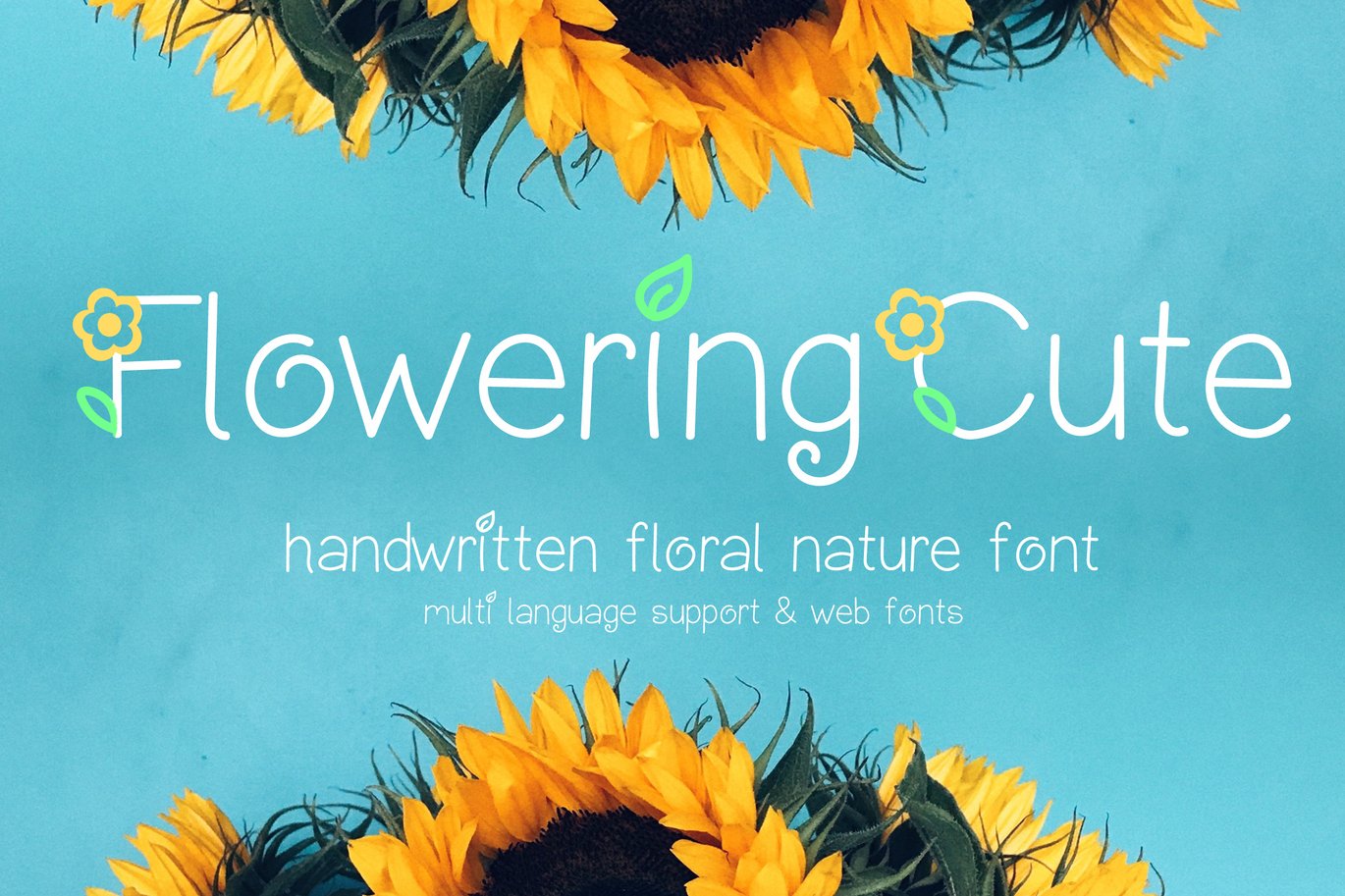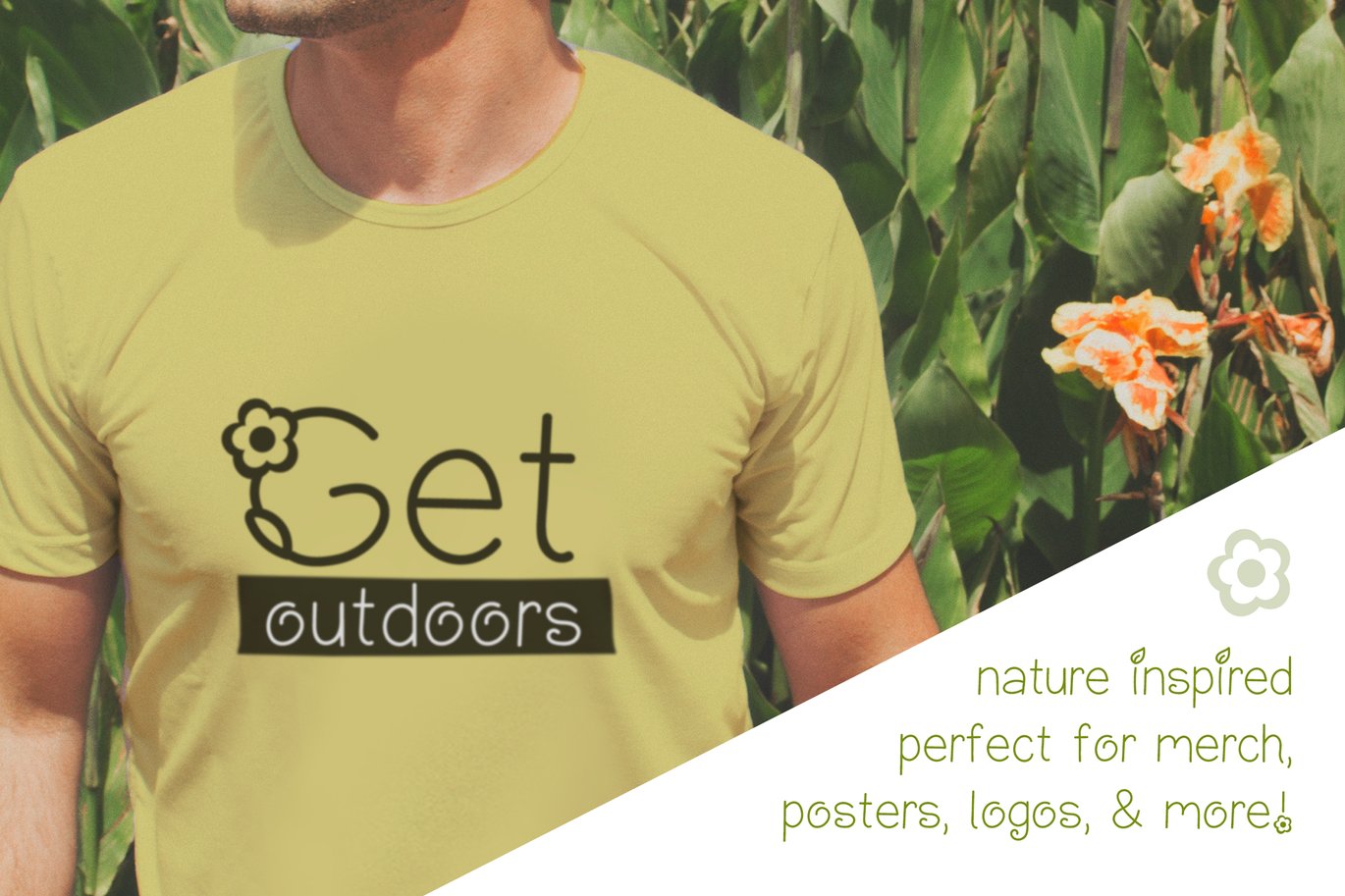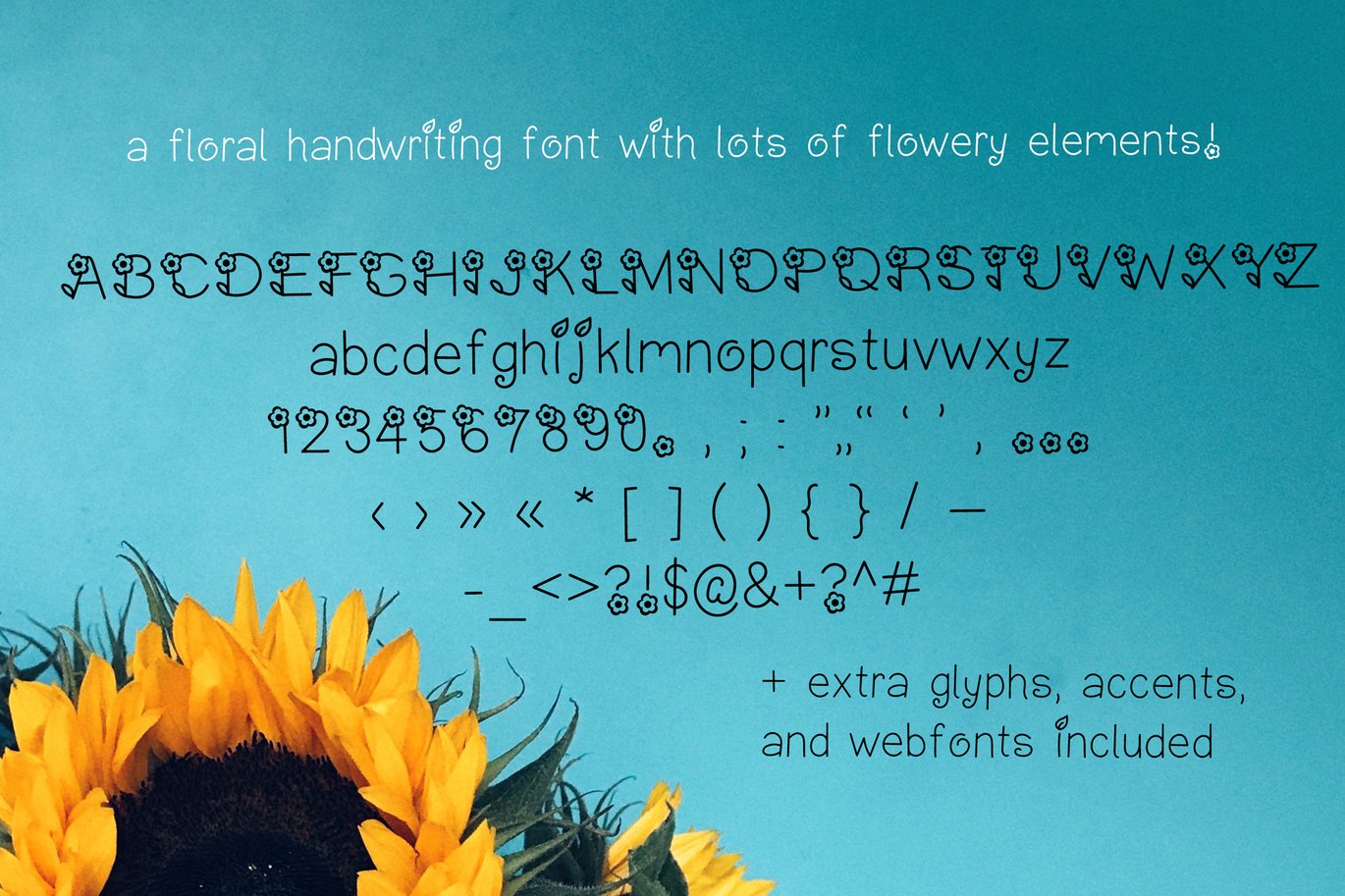
Flowering Cute Handwriting Font with Flowers
Introducing Flowering Cute handwriting font, a flowery font with lots of personality! If you love fonts with plants or flowery fonts, this flower lettering might be right up your alley. It could be a great choice if you’re looking for organic fonts, nature fonts, or a spring font for your next design project. It also includes web font files to use in your web based projects.
There’s also extended Latin characters, as well as other glyphs! I had a lot of fun drawing this font, and I hope you enjoy it!